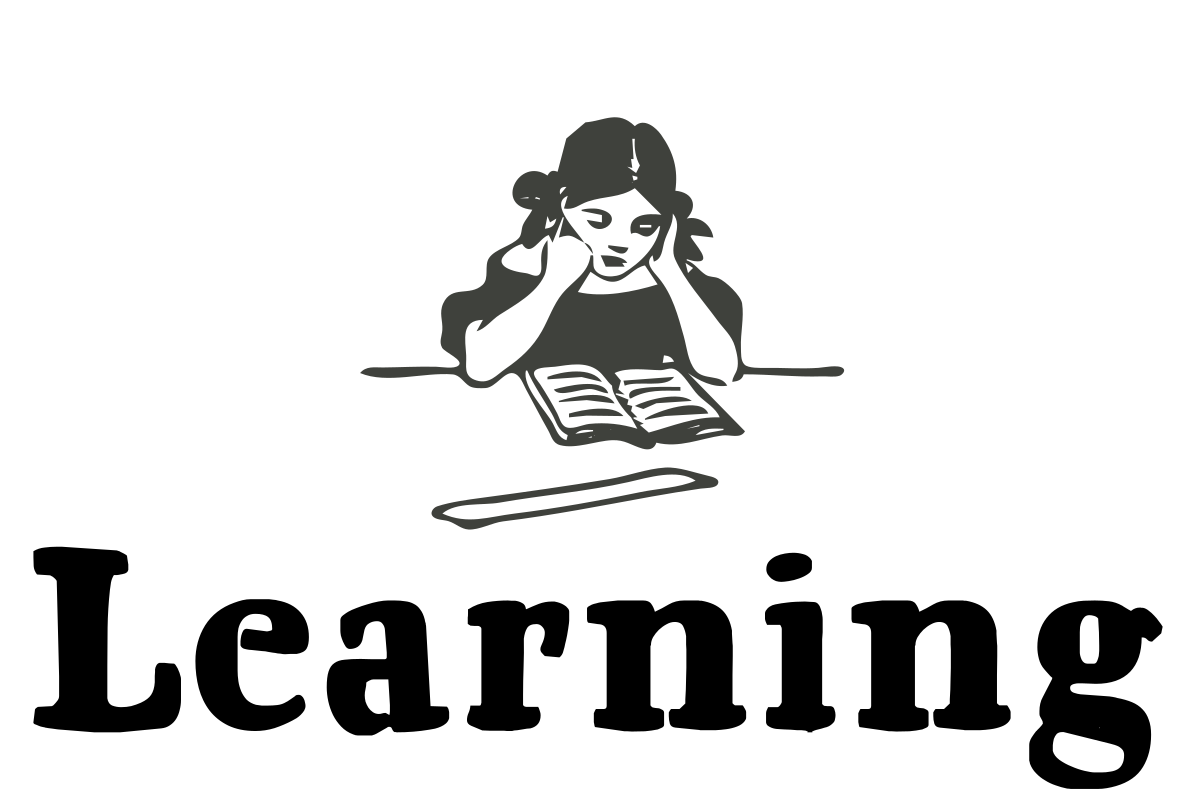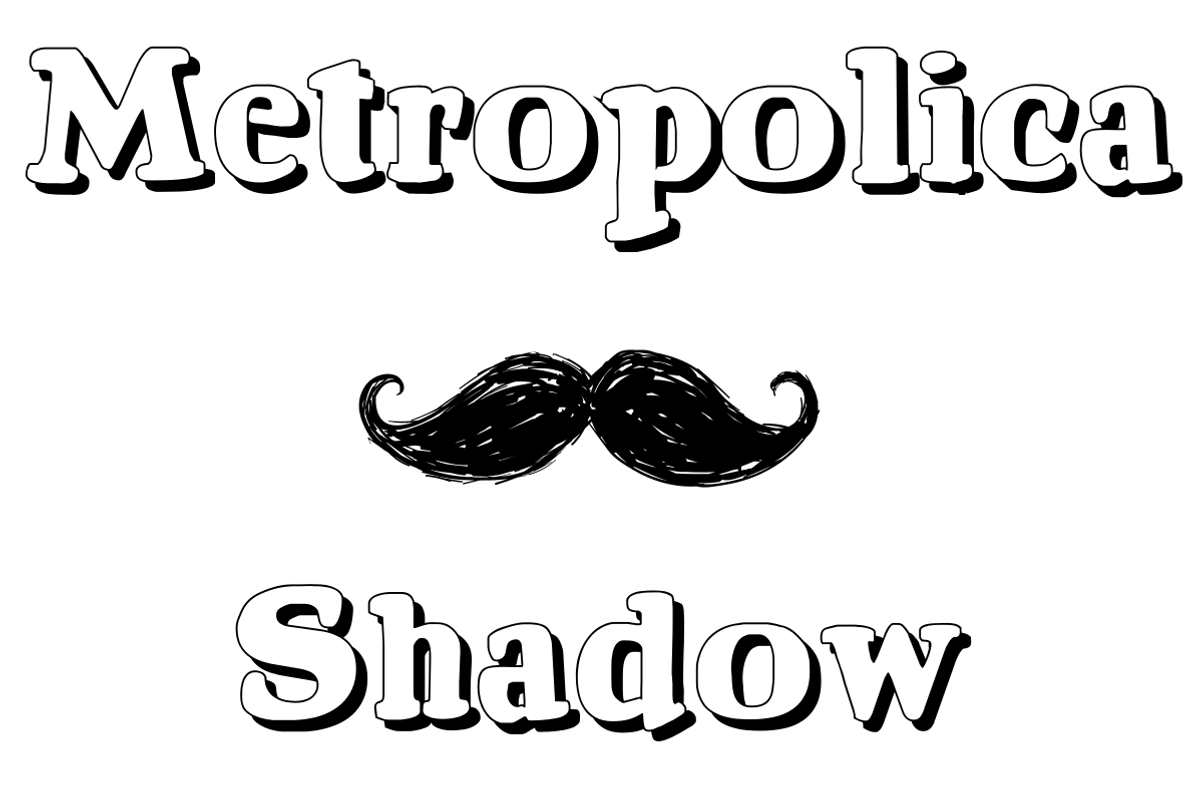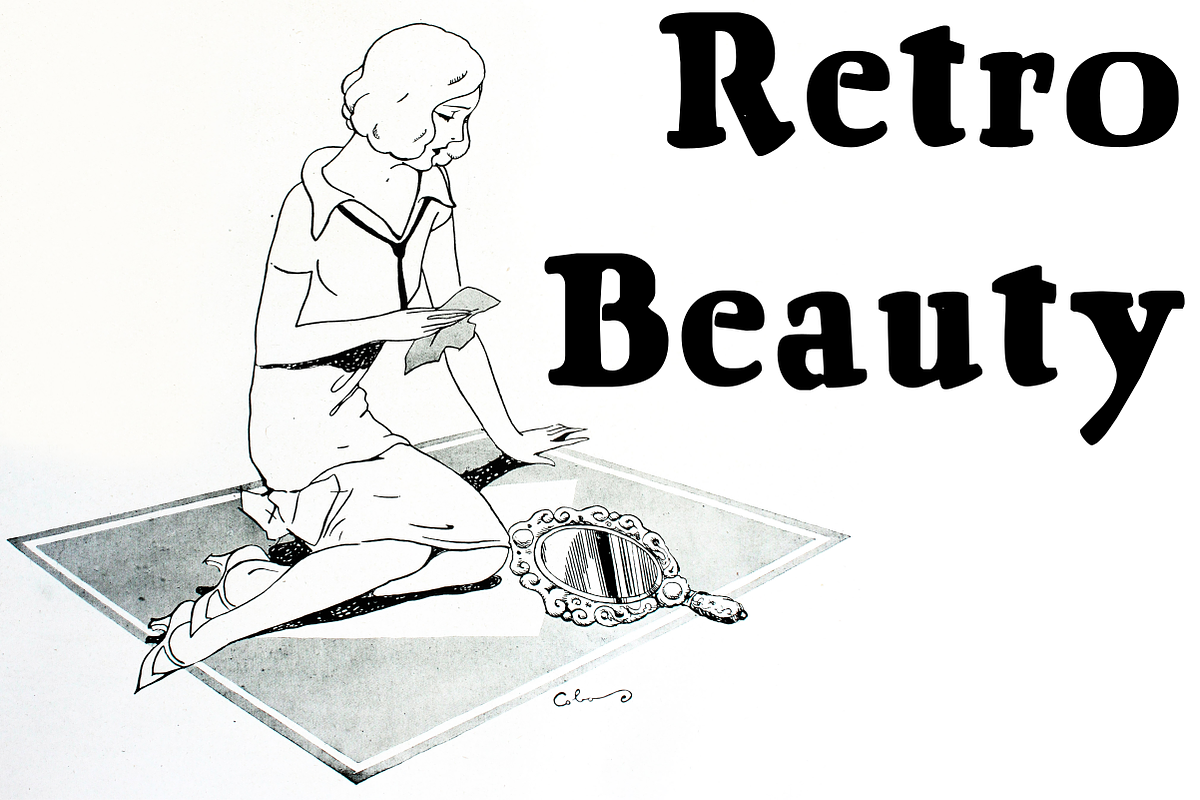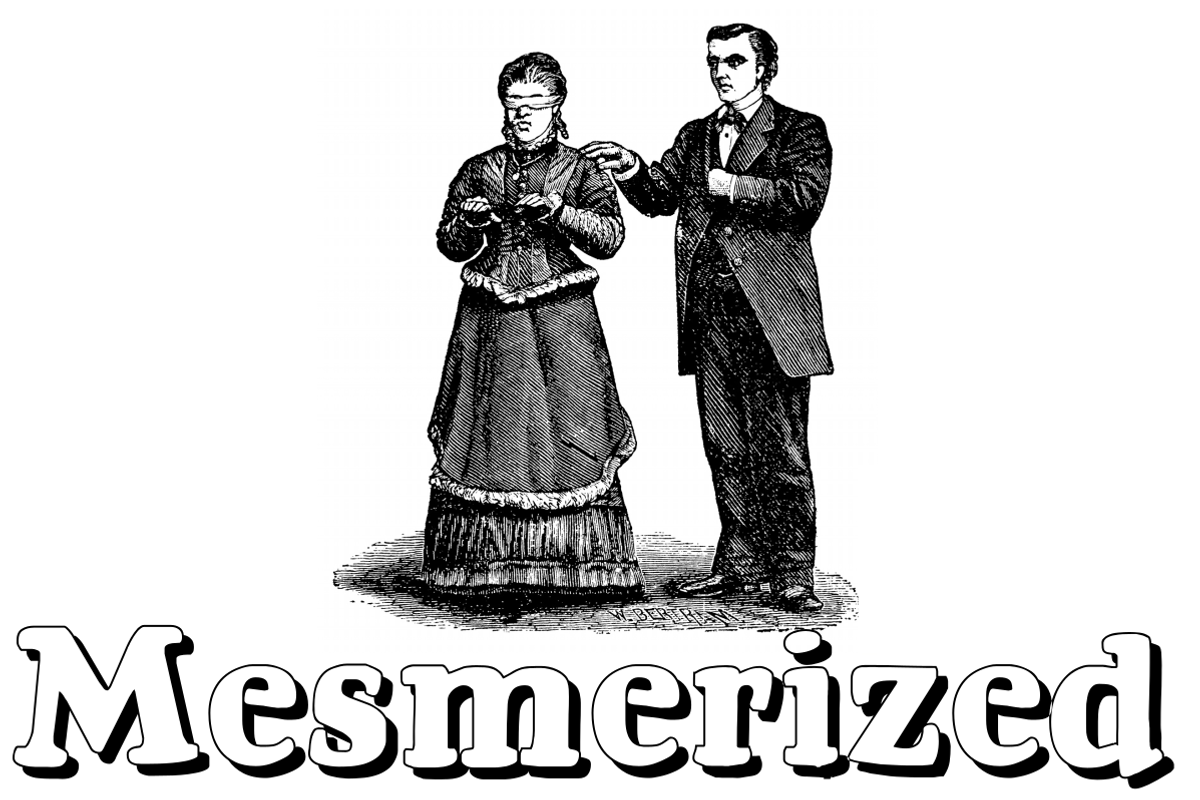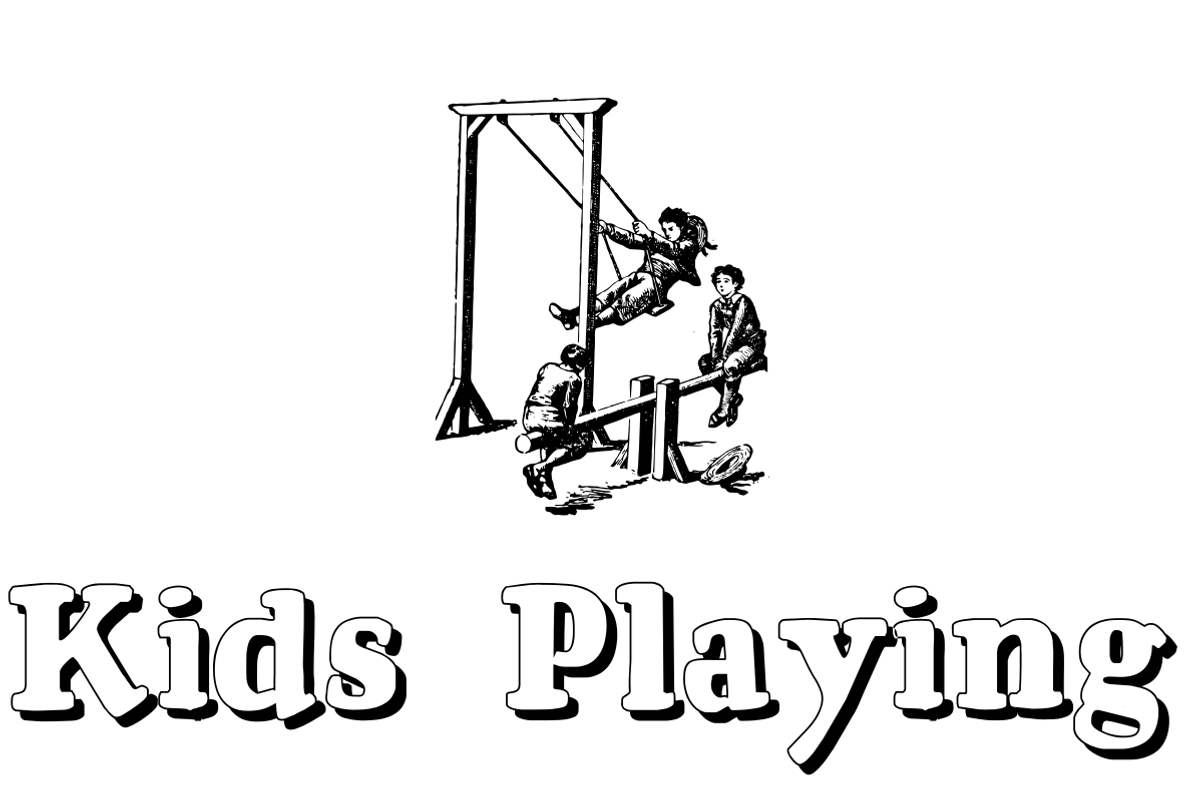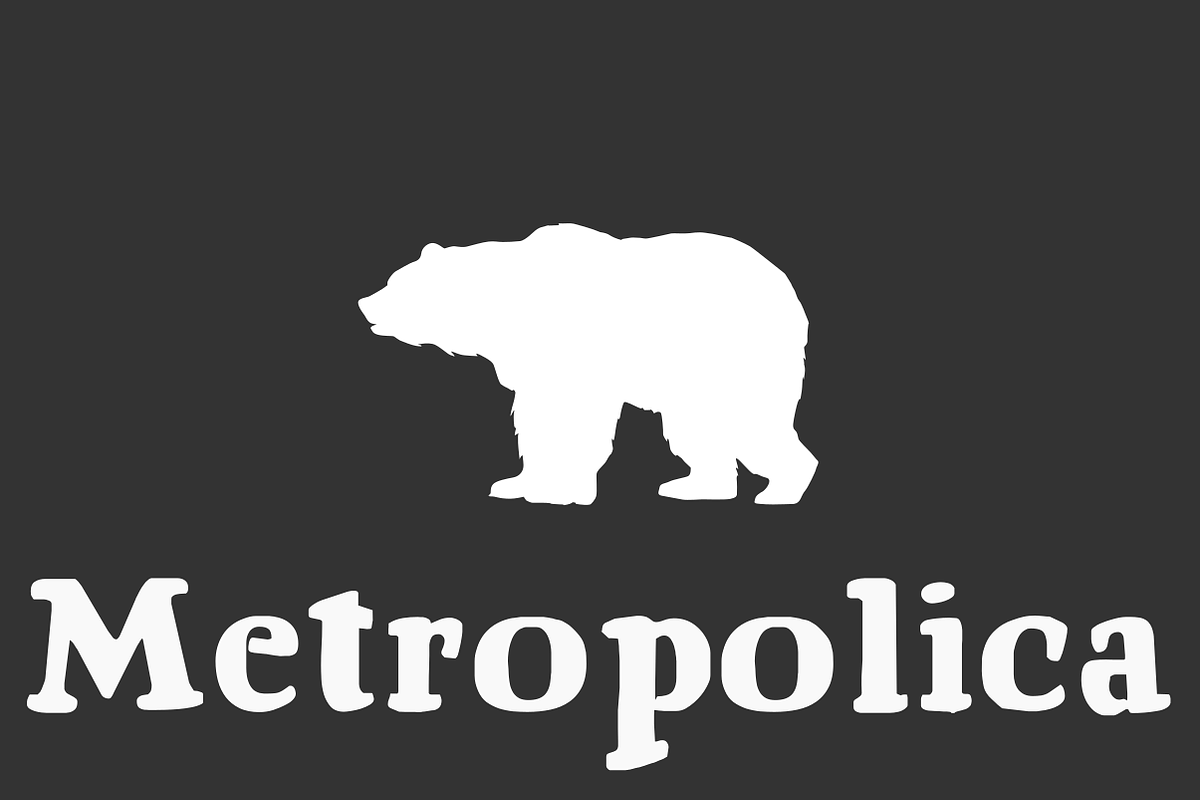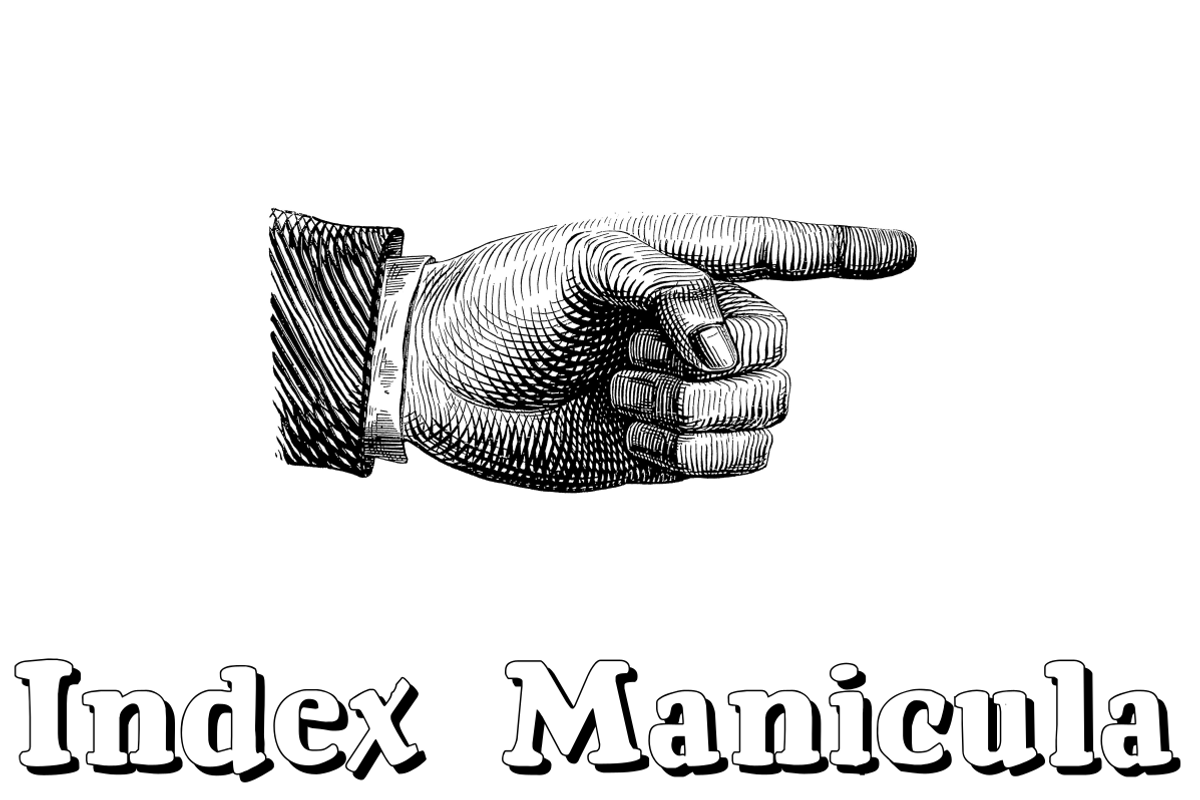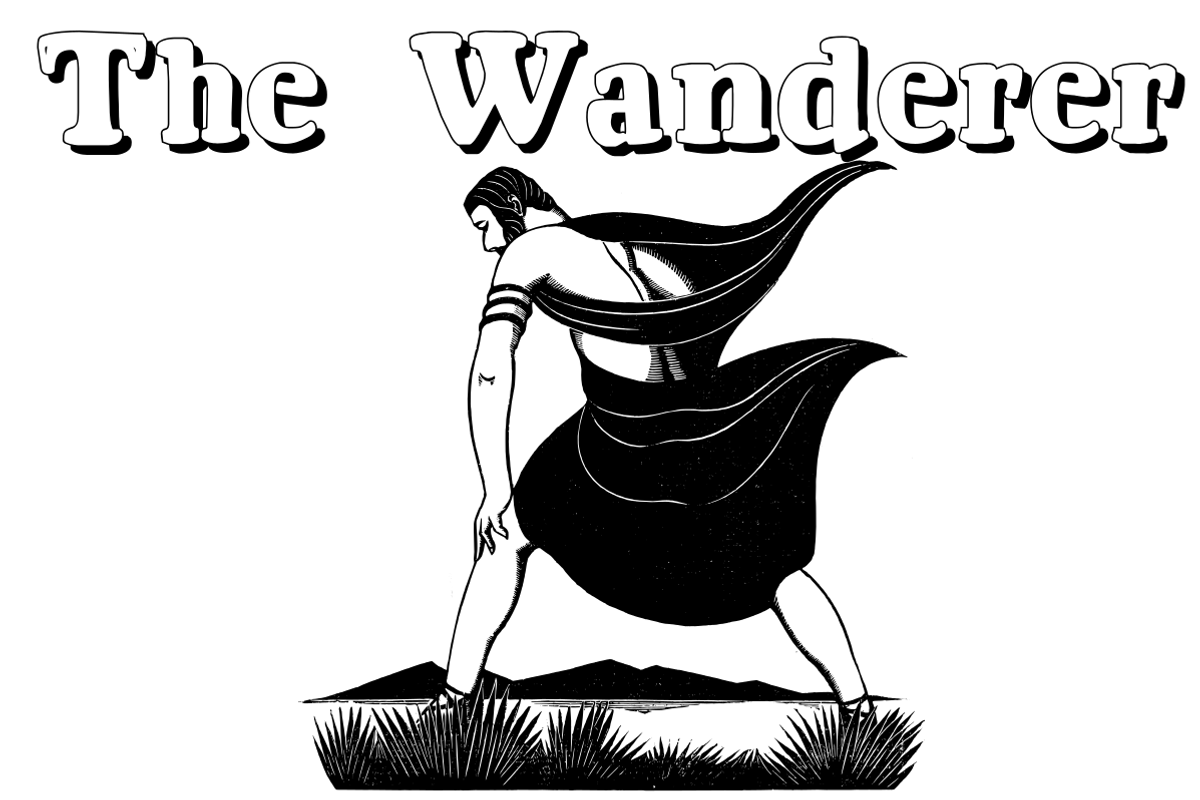
Metropolica
Metropolica is a retro font good to titlings, head of texts in moder magazines, to create folders and press pamphlets, and moore. Two versions (shadow and regular) by only USD 20,00 !!! AND WEB FONT INCLUDED